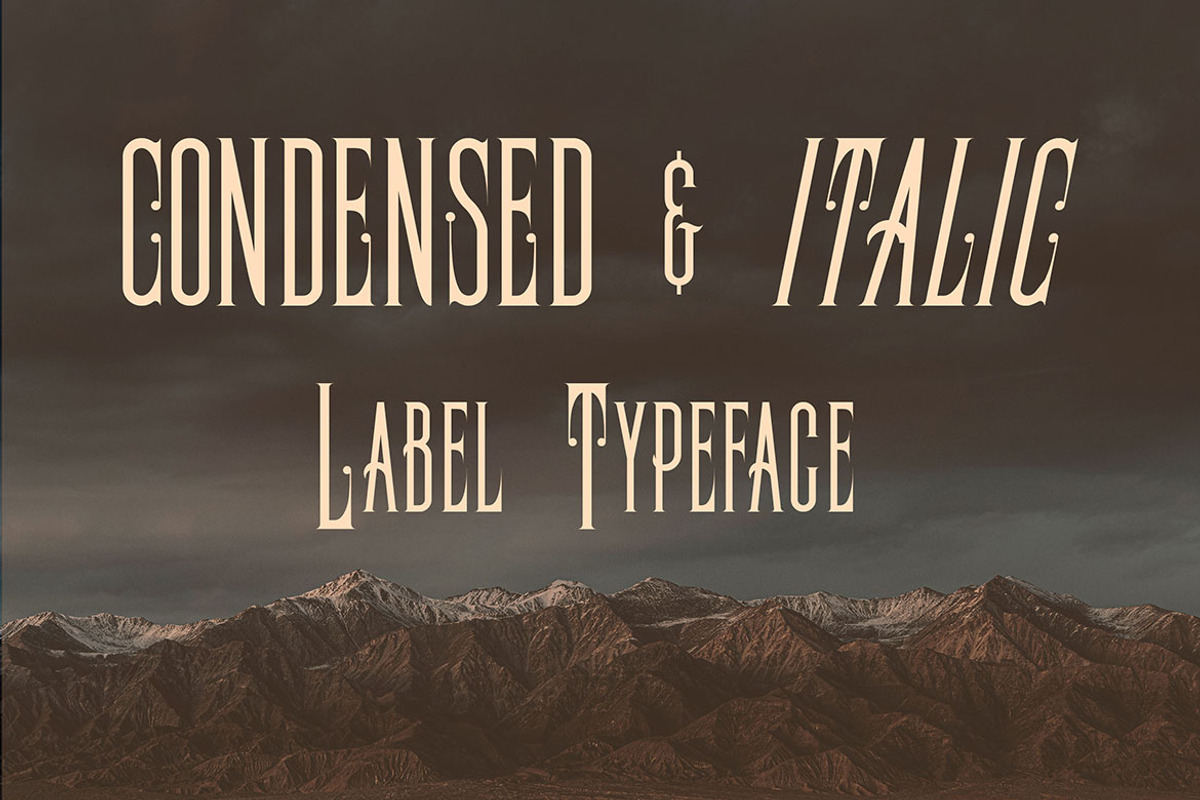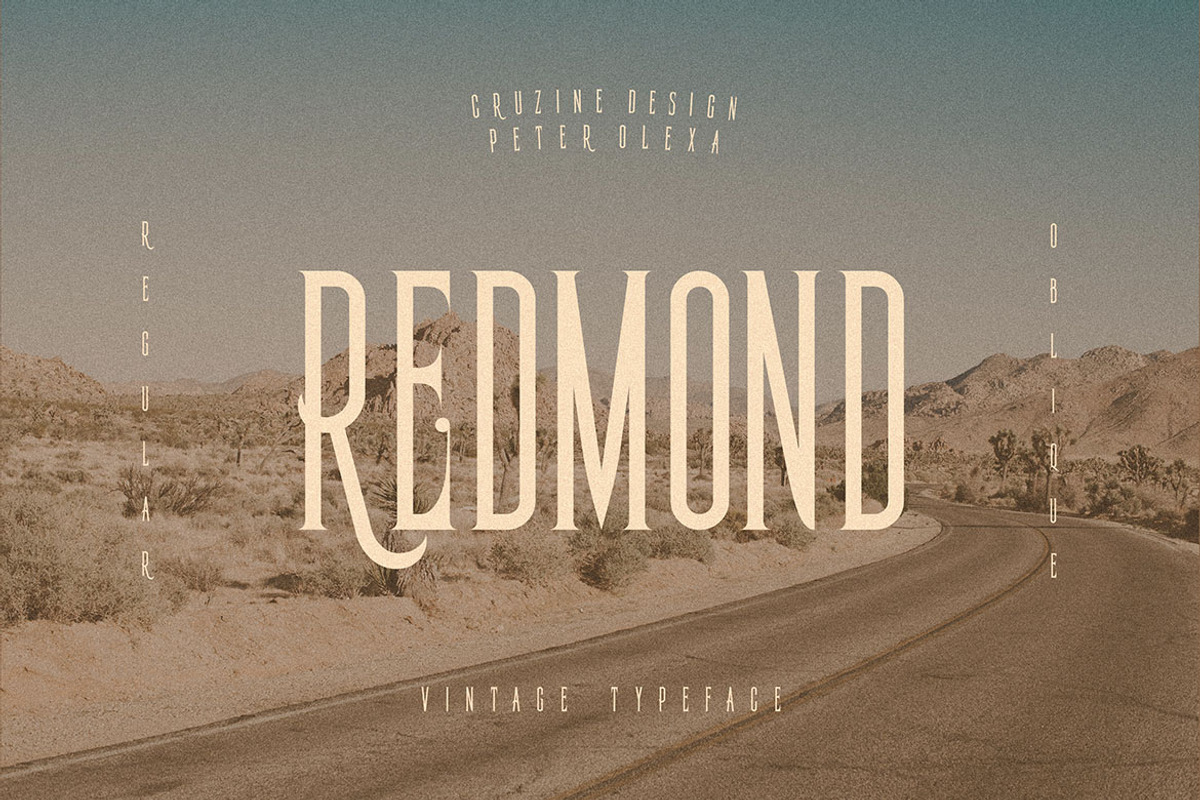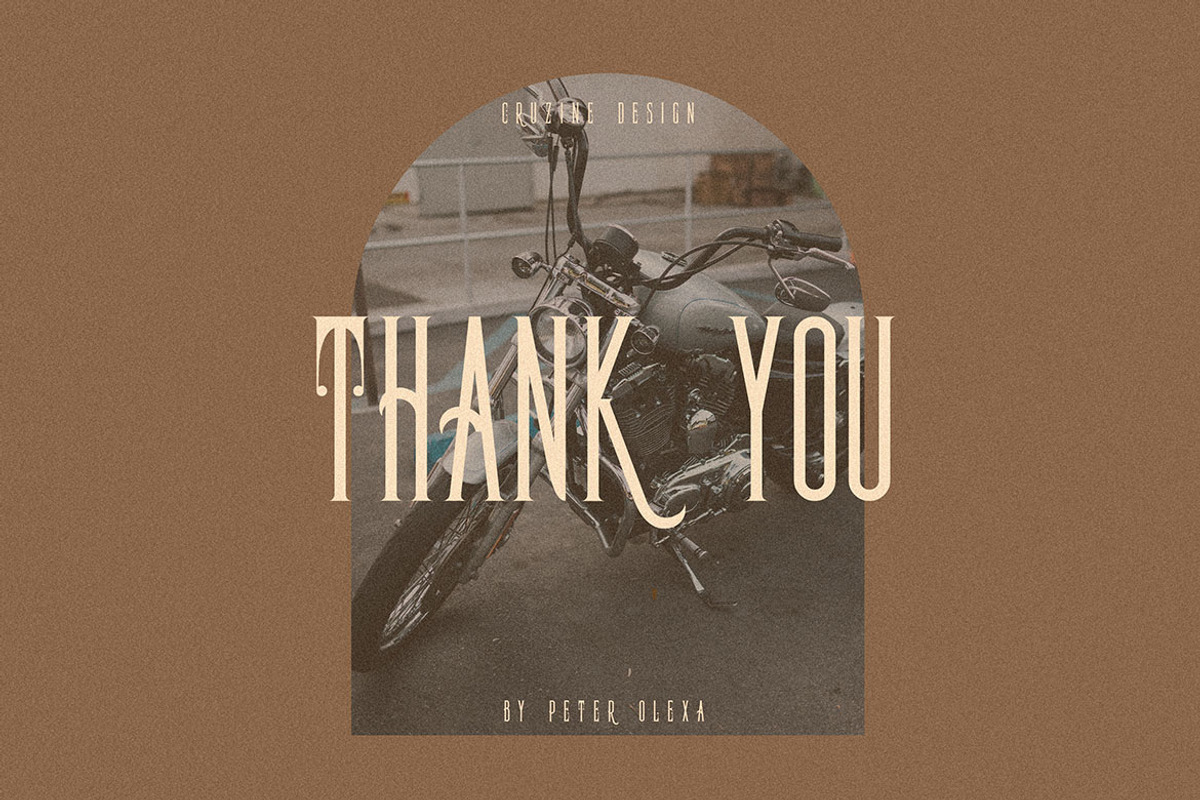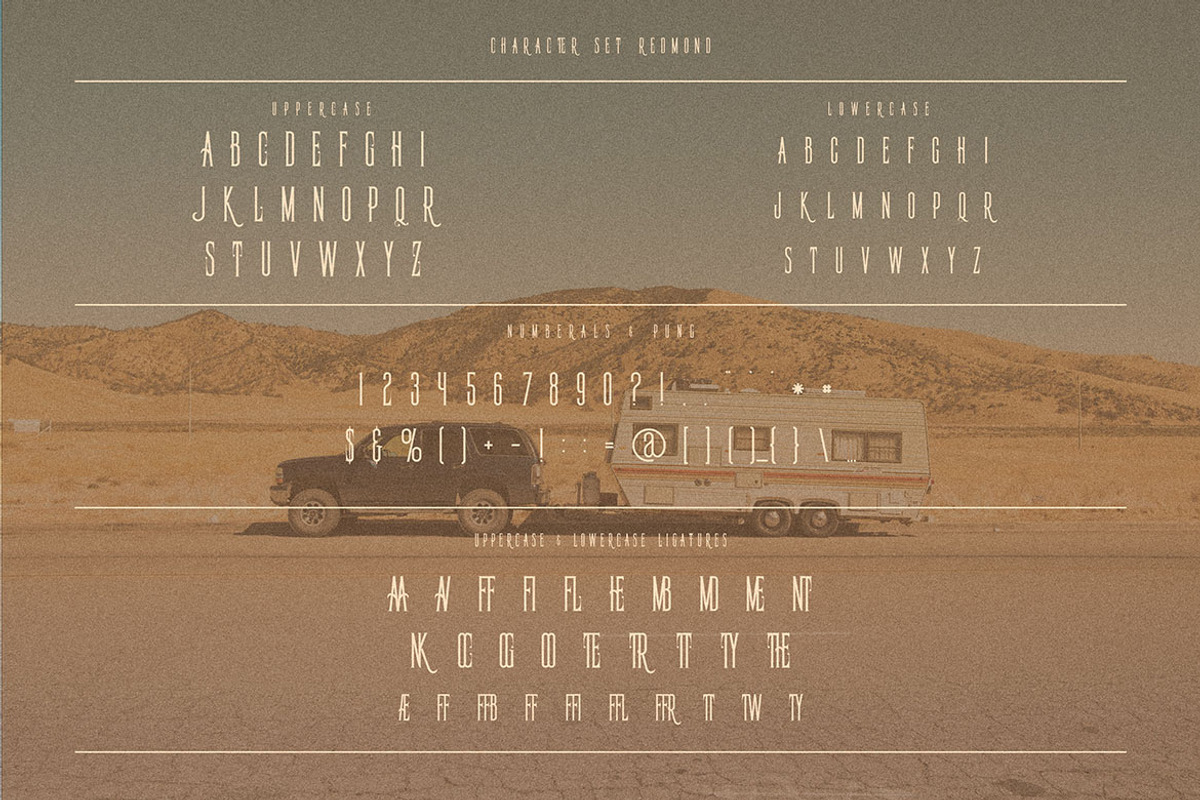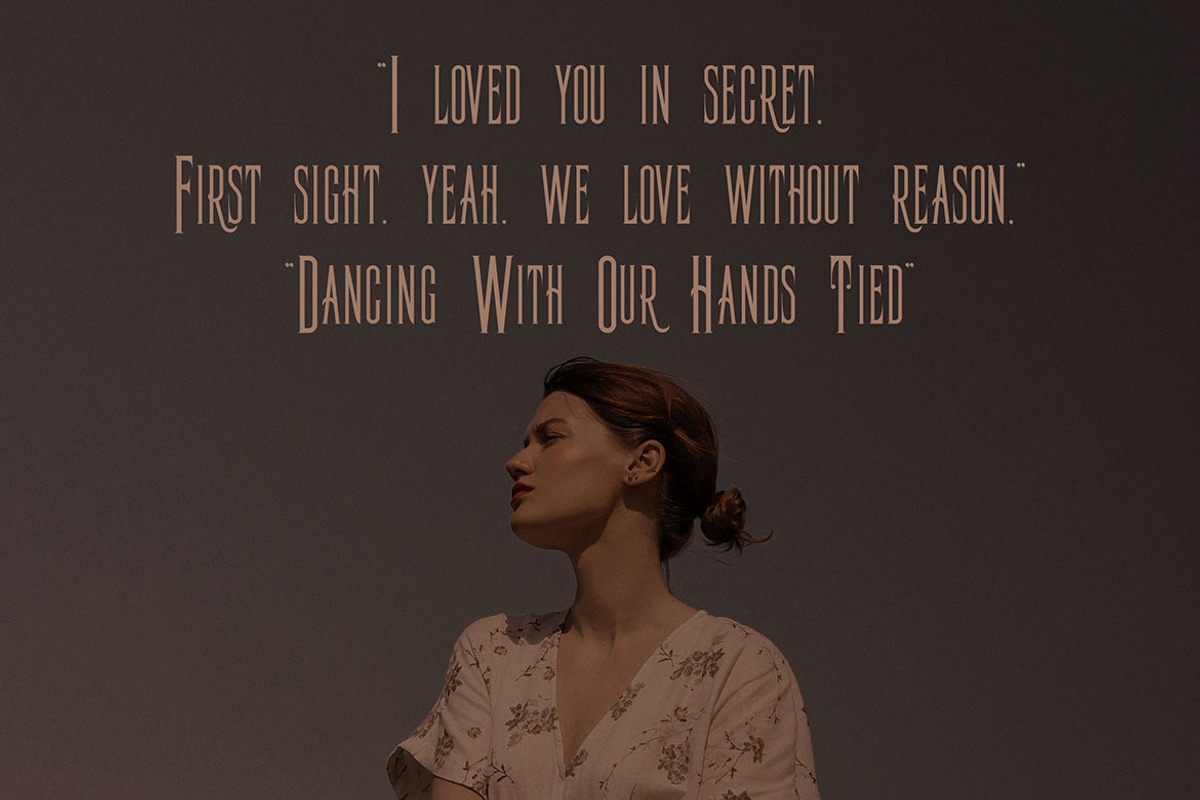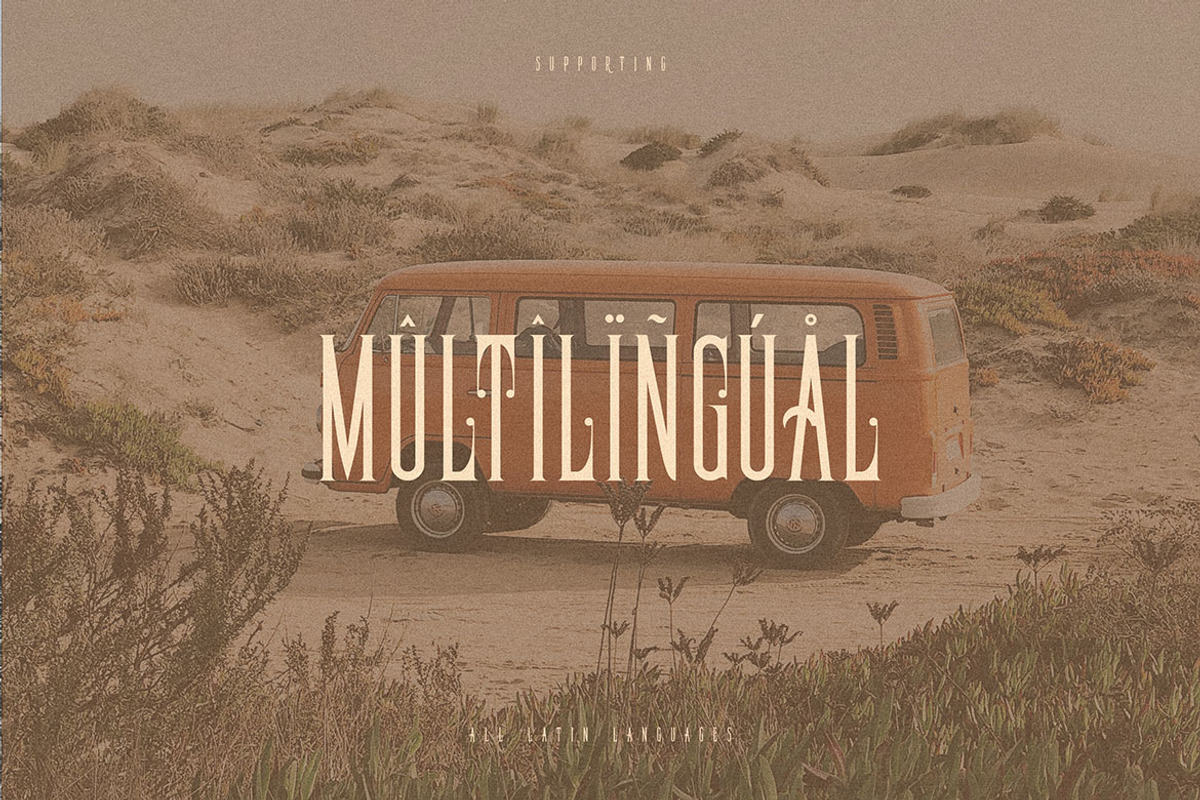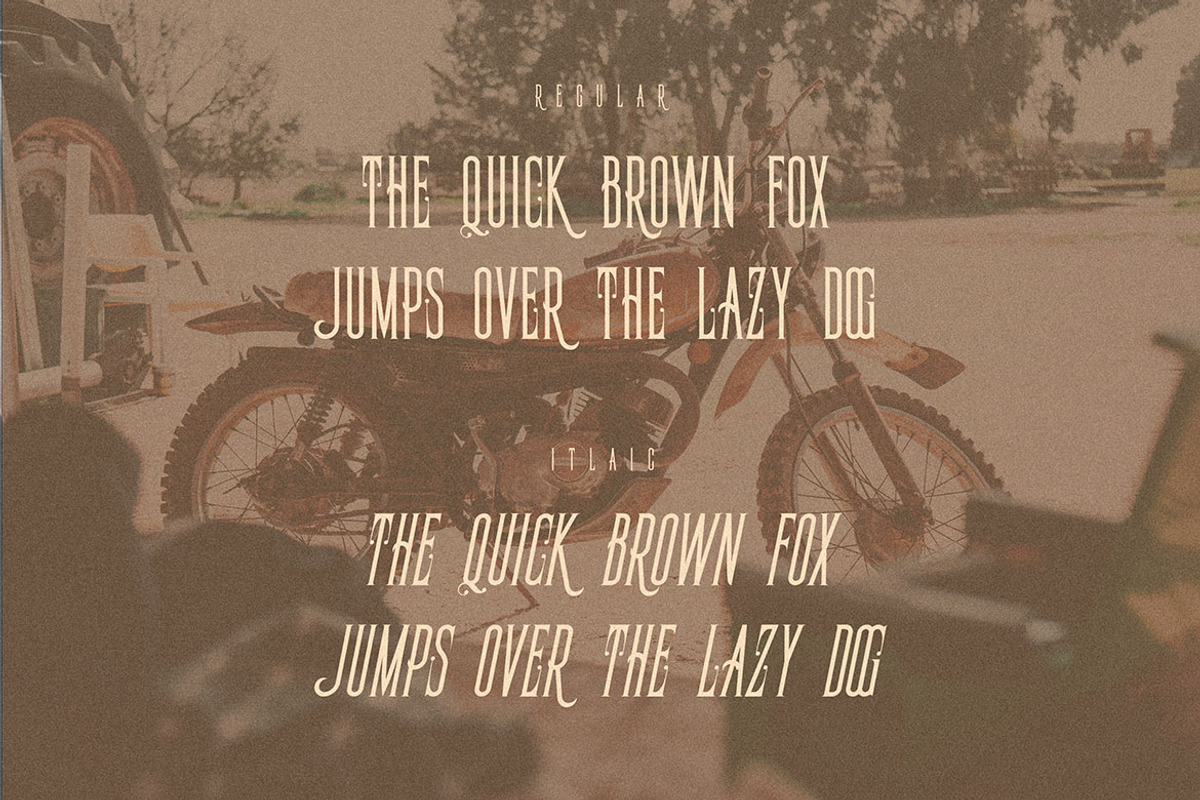
Redmond Vintage Condensed Font
Unique condensed, vintage & decorative serif font. Comes with multilingual support & ligatures - great for your new logo or branding project.
- Regular & Italic
- Great for retro or vintage style branding projects